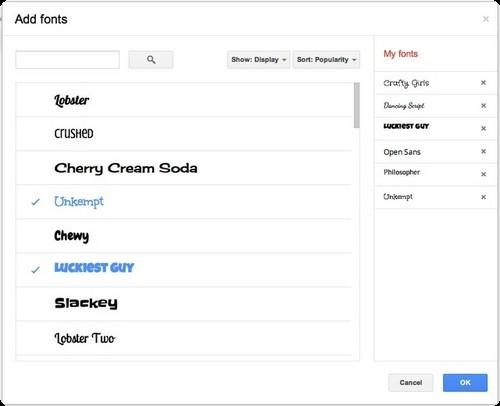
Free Popular Cool Fonts On Google Docs Free Typography Fonts
popular cool fonts on google docs
Popular cool fonts on google docs. There are a lot of other cool things you can do with fonts in google docs that you probably arent aware of. But roboto condensed is also the sixth most popular font and roboto slab also makes an appearance at number 13. This collection focuses on typeface families from reputable type designers and foundries that contain multiple weights and styles. Popular cool fonts on google docs.
For example roboto is the most popular font. If you want to take your documents to the next level take a look at these cool and unique font and text effects. Commissioned by google fonts for use in google docs sheets and slides but suitable for any project spectral is a versatile serif face created by production type in paris thats available with seven weights of roman and italic from extra light through to extra bold with small caps included. Its now massively popular comes in 12 different styles and makes multiple appearances on google fonts analytics.
Other cool font and text effects in google docs. Pretty letter designs hamle rsd7 org. Top 10 beautiful google font combinations in 2018. Inspired by six centuries of french type design.